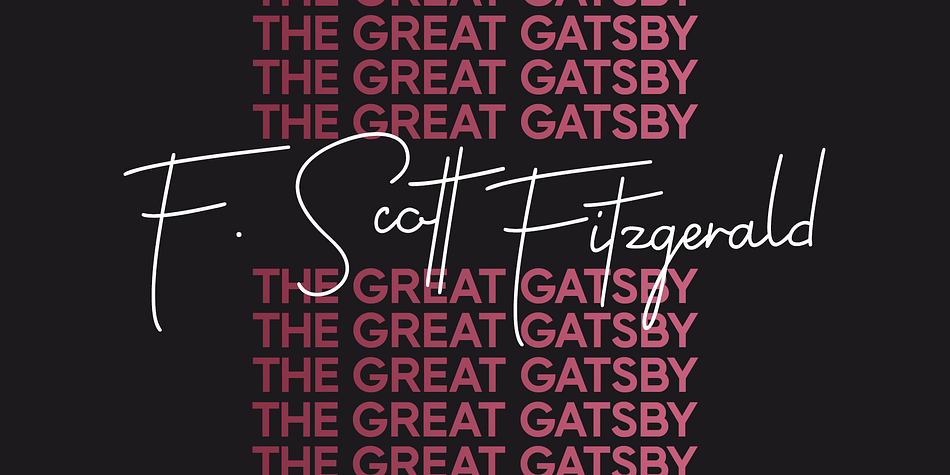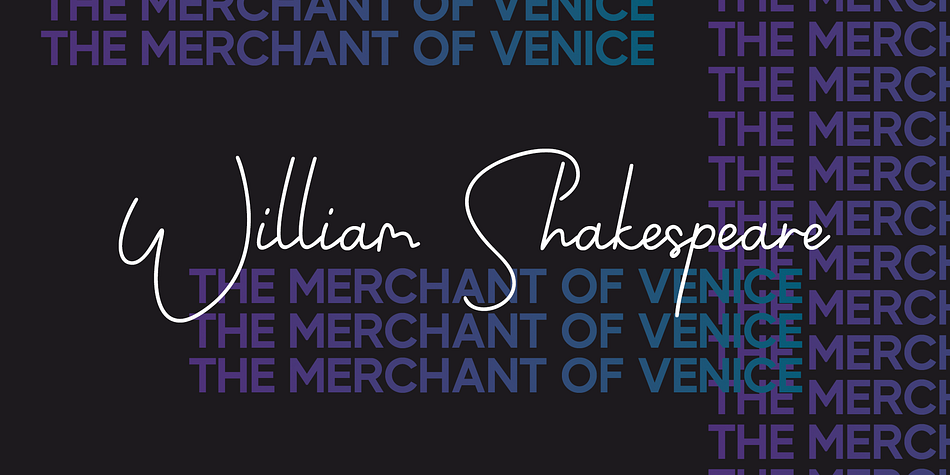
Writer Autograph
Writer Autograph is a hand drawn font family. This typeface has two styles and was published by SMARTFONT.
Writer Autograph is inspired by writers and the characters in their novels.
This family contains uppercase and lowercase glyphs alongside a large range of punctuation, symbols, numerals, and multilingual support. There are two weights - light and regular - and built in OpenType kerning features for a professional touch.
This font is perfect for creating slick & stylish lettering. Whether for logos, product packaging or merchandise, Writer Autograph is guaranteed to give your text an unmistakeable quality.